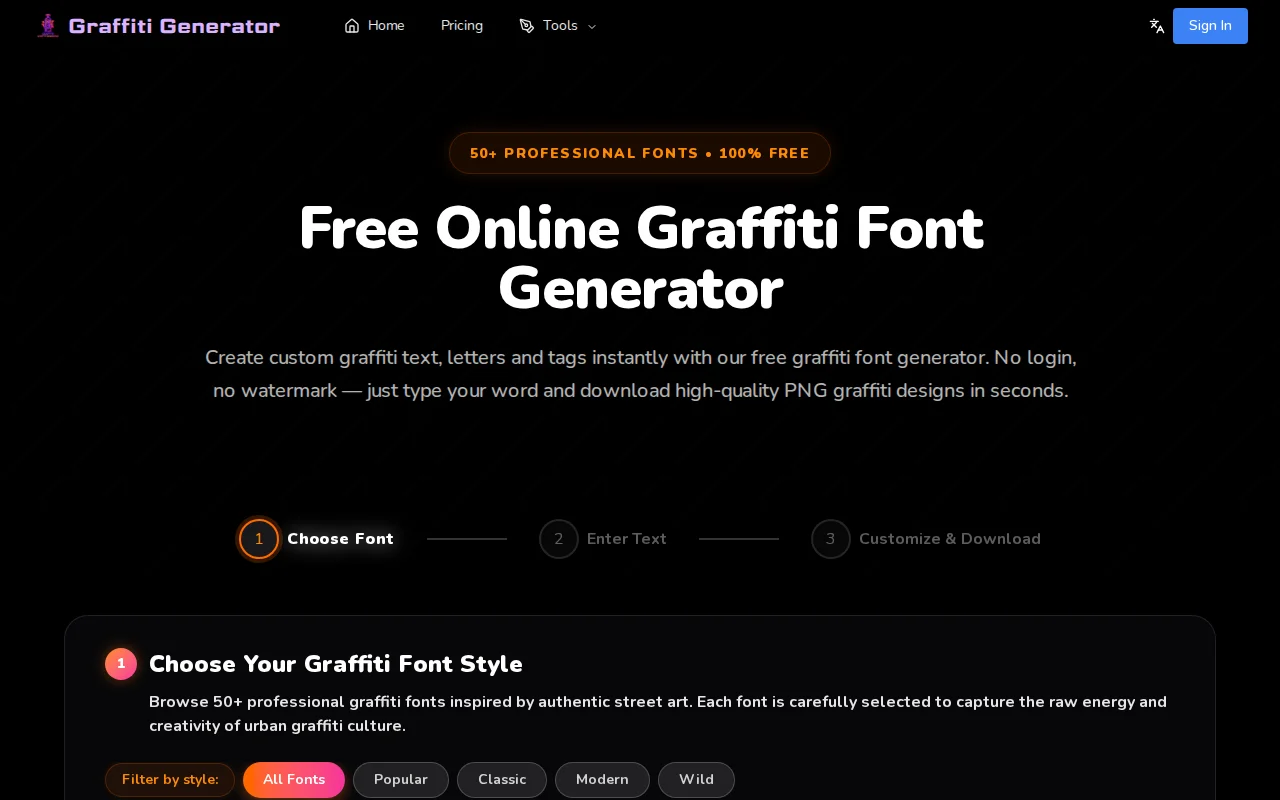
A graffiti font generator that runs in the browser
50+ graffiti fonts with no login, but font generators are a dime a dozen.
• No login or watermark—just type and download PNG instantly
• Mobile-friendly with 50+ authentic street art font styles
• Color, outline, shadow controls without design software
• SVG export and warp controls still missing from the roadmap
• No real differentiation from dozens of free font generator sites
I built this because I wanted a quick way to make graffiti-style text without opening design software.
Most of the tools I found were either basic text effect sites with very little control, or full image generators that felt too heavy for something as simple as making a tag or short wordmark.
So I made something in between. You pick a style, type your text, tweak a few controls, and export a PNG in the browser.
Right now it has 50+ styles and controls for color, outline, shadow, and size. It also works on mobile.
Still early, so I'd especially love feedback on: - which styles feel genuinely useful - what controls are missing - whether SVG export or spacing / warp controls would make it much better